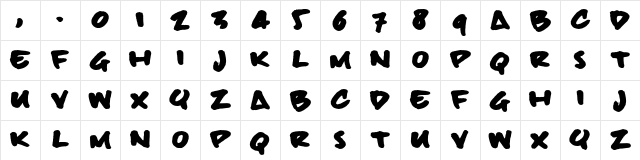
Complete billieBoldHand Regular glyph index. Displaying only characters natively supported by billieBoldHand Regular font.
billieBoldHand flows with the natural rhythm of handwritten lettering, making it ideal for designs that call for warmth and personal expression. Its bold stroke weight gives it real presence on the page.
Font Pairing: Combine billieBoldHand with a simple geometric sans for maximum contrast - the tension between flowing curves and clean structure is a classic typographic pairing.
Pro Tip: Use billieBoldHand for short runs of text - names, titles, or taglines. Extended body copy in script faces tires the eye quickly.